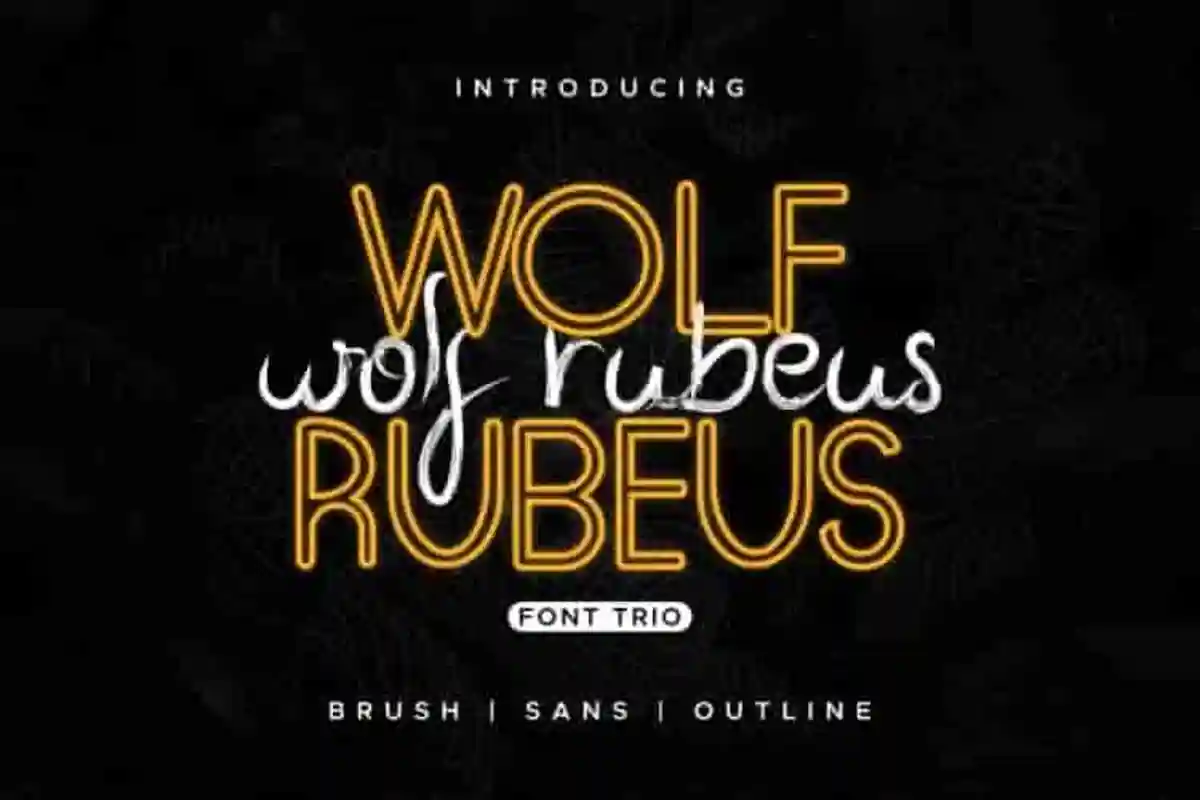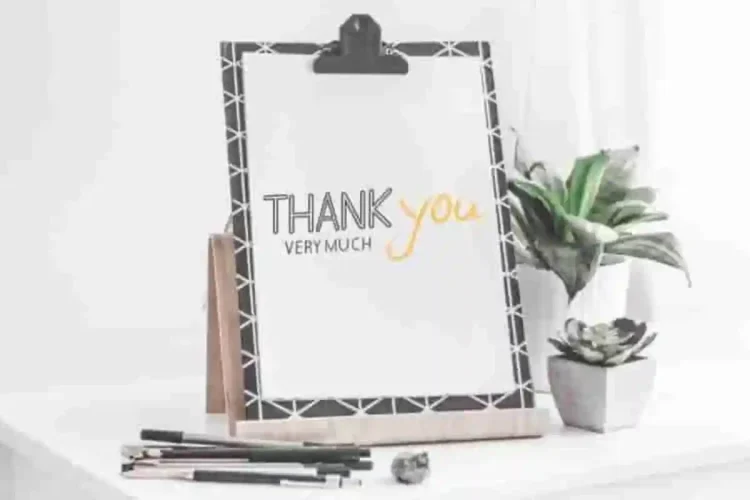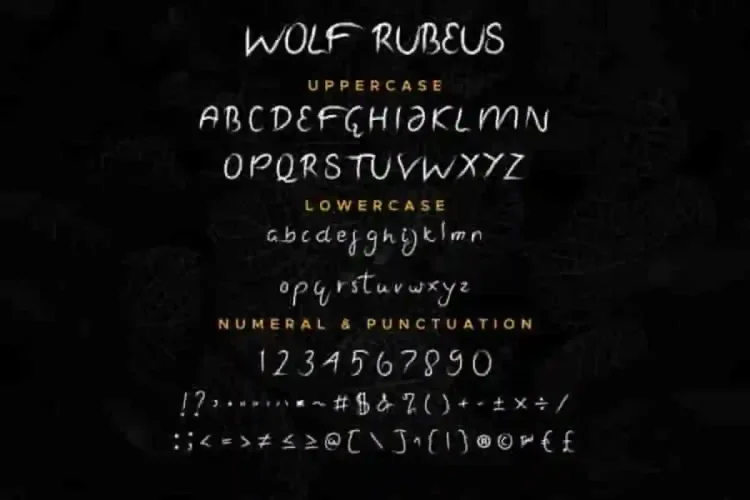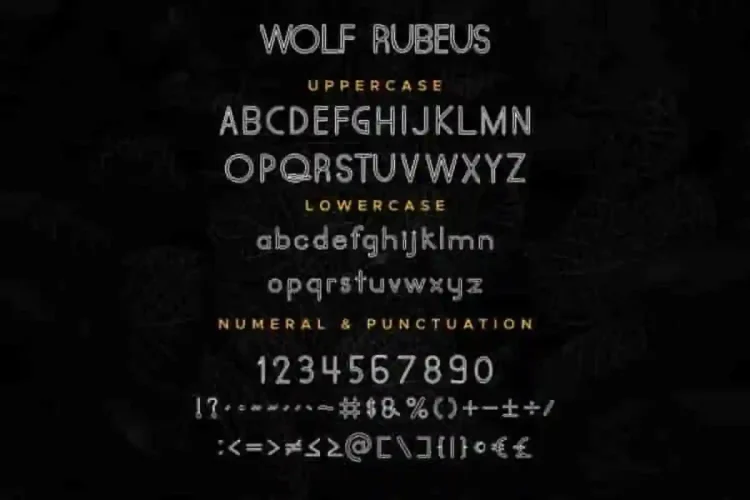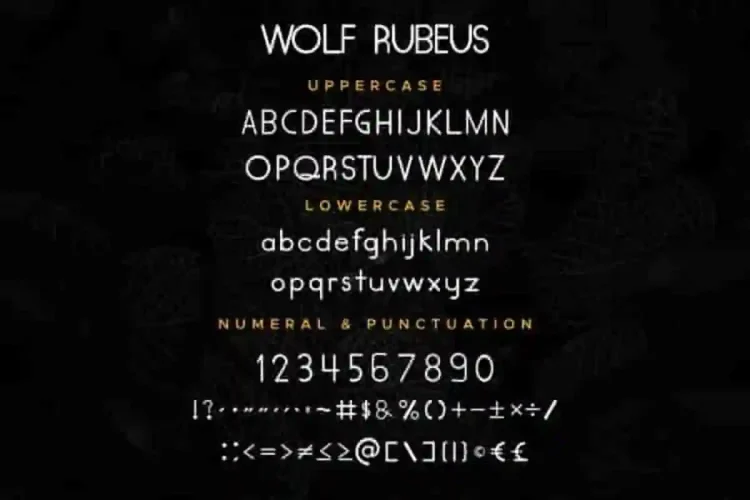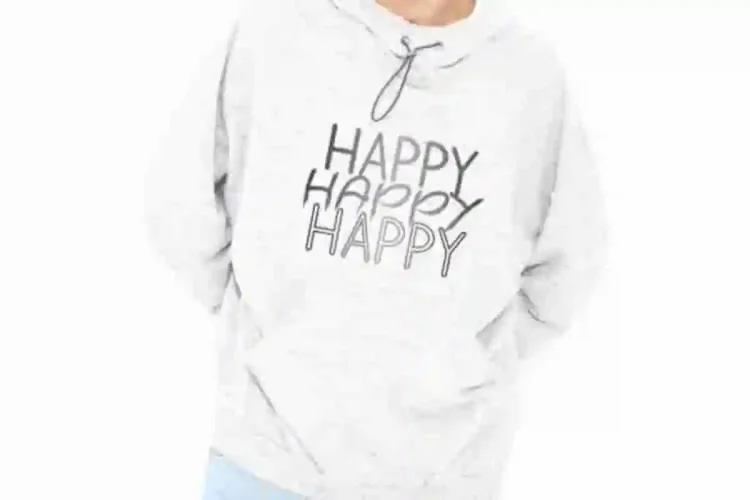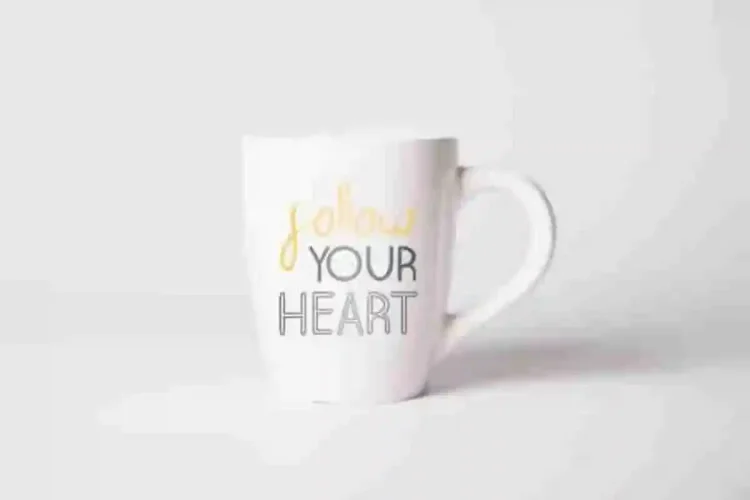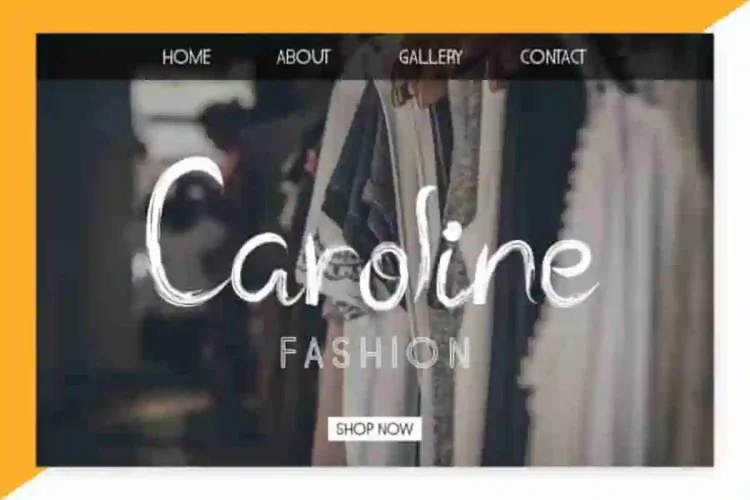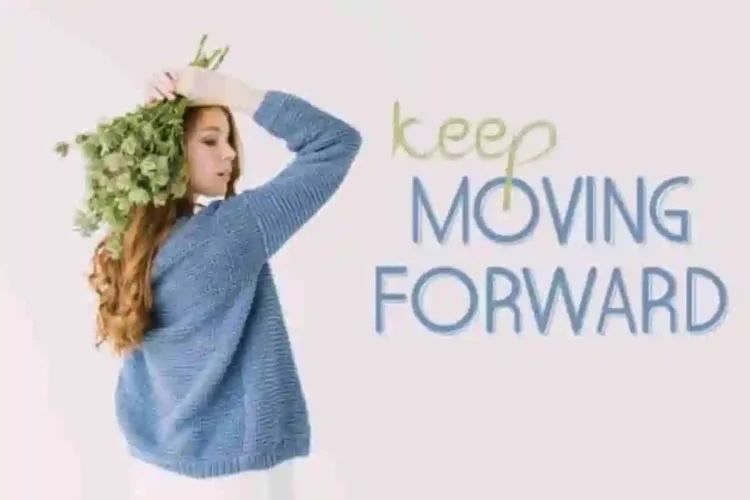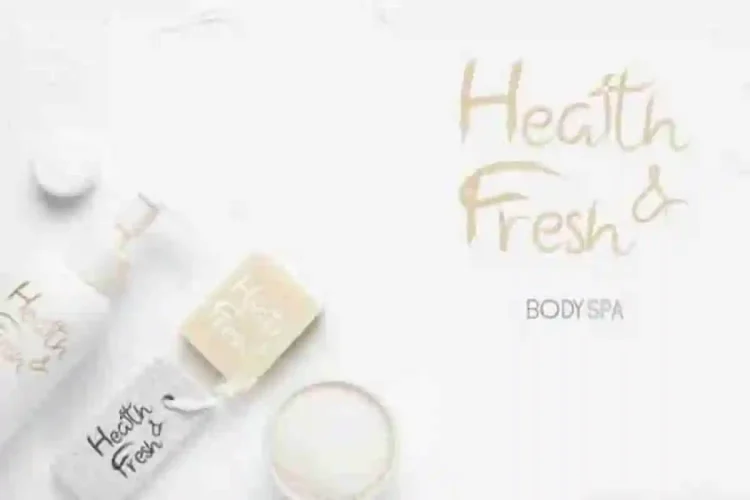
Wolf Rubeus Script Font Trio
Please welcome, one of our newest font : Wolf Rubeus Script Font Trio . This new font is a signature style font script. Introducing Wolf Rubeus, a stunning script font trio crafted by our talented designers Deyan, Yasri, and Sarah in Bandung, Indonesia.
This font has an exclusive beautiful three signature styles : Sans Display, Outline and Rough Script . The characters of this font is unique, mysterious, horror, grunge, elegant, brush and decorative look. With these styles you can explore many industries and designs categories : Movies, Music, Cafe, florist, gardening, makeup, designers etc.
Wolf Rubeus Script Font Trio has a unique and exclusive glyphs that will be great for many projects categories : Logo type, flyer, stationery, business card, signage, flyer, brochure etc.  With your creativity, there’s no limit using with this typeface.